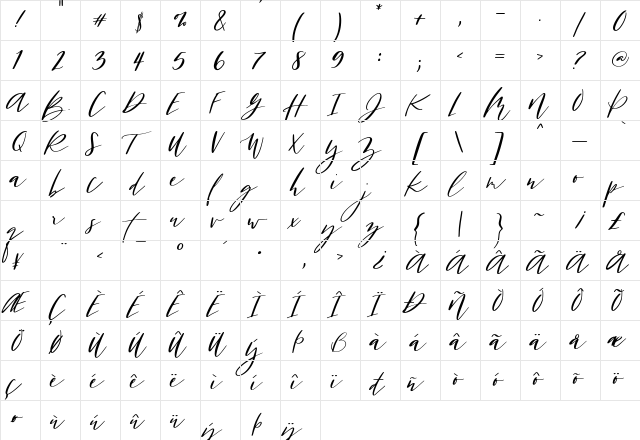
San Clemente Regular
Design Context for San Clemente Typeface
San Clemente is a composed and adaptable typeface that performs quietly and consistently across a wide range of design contexts.